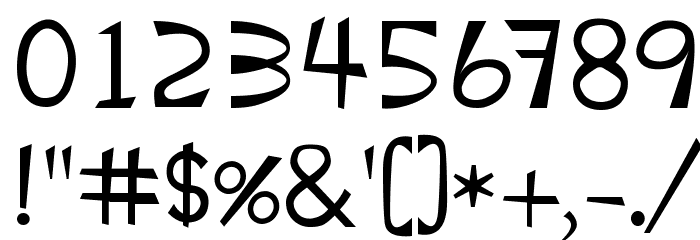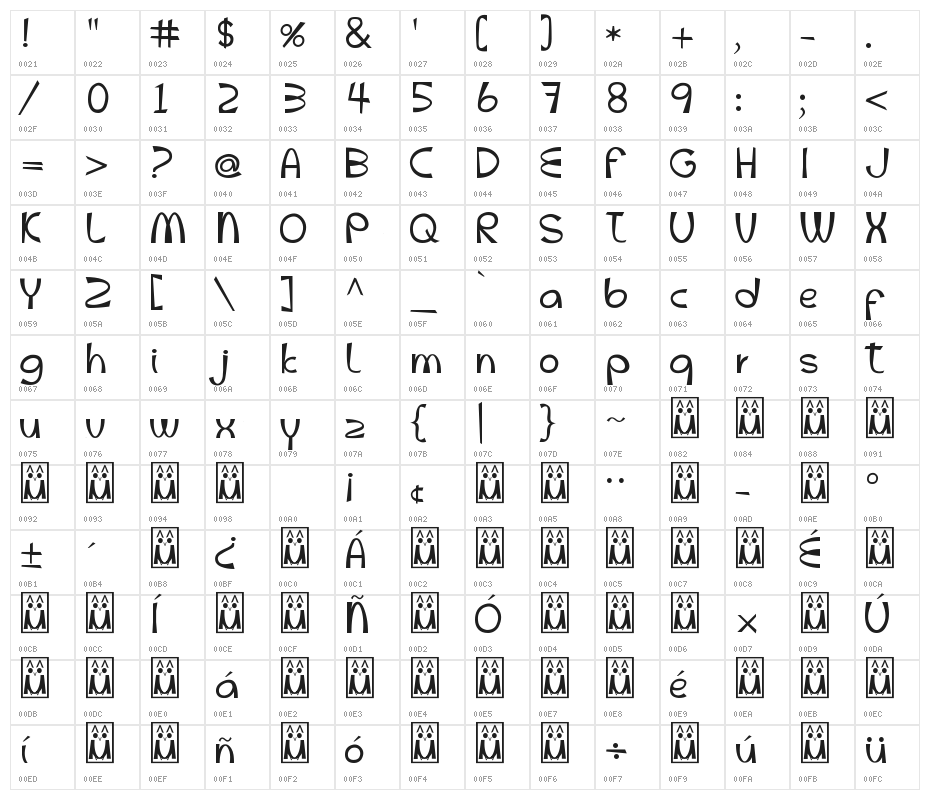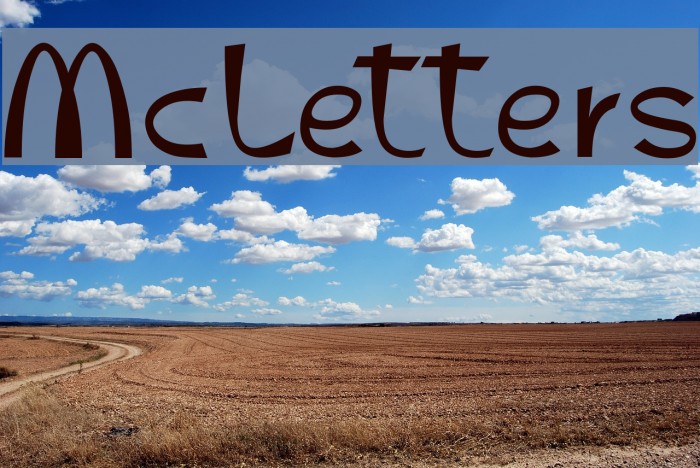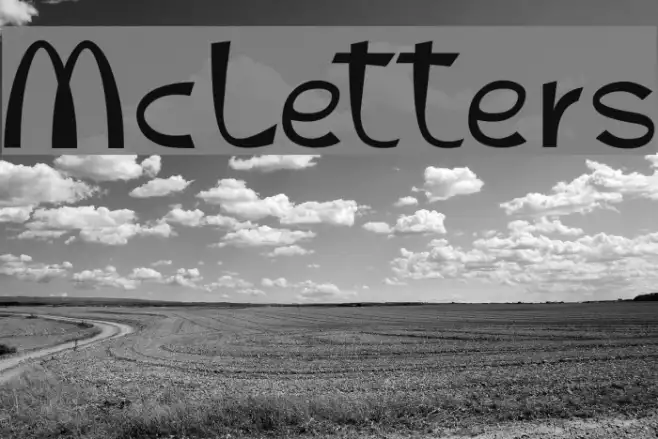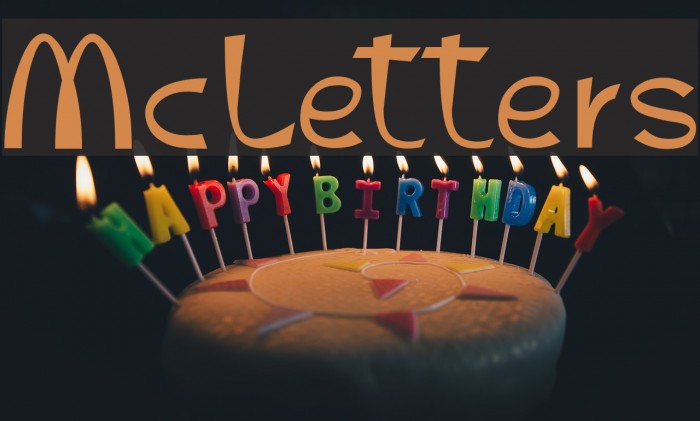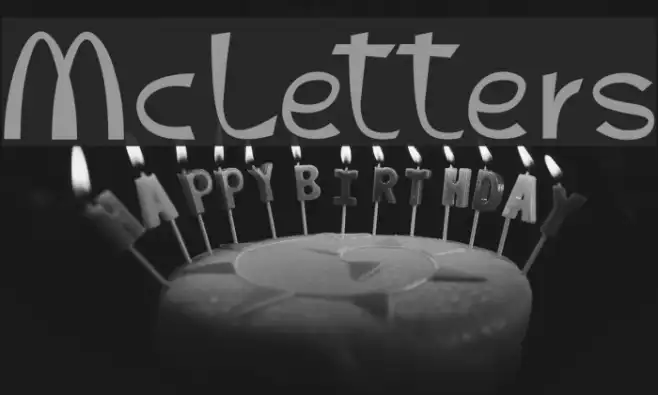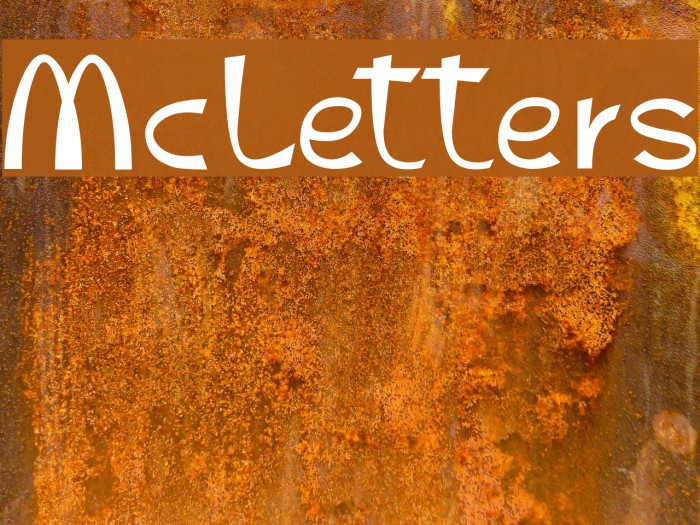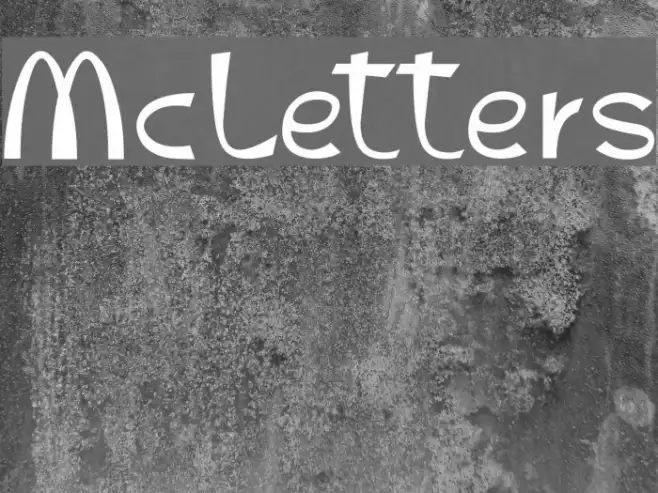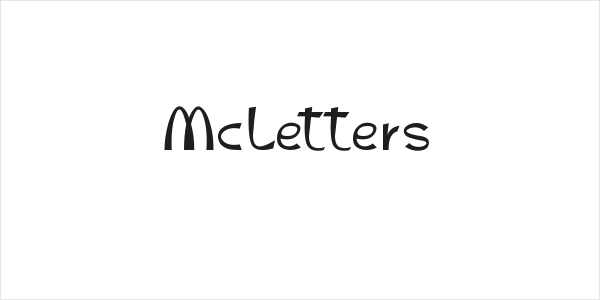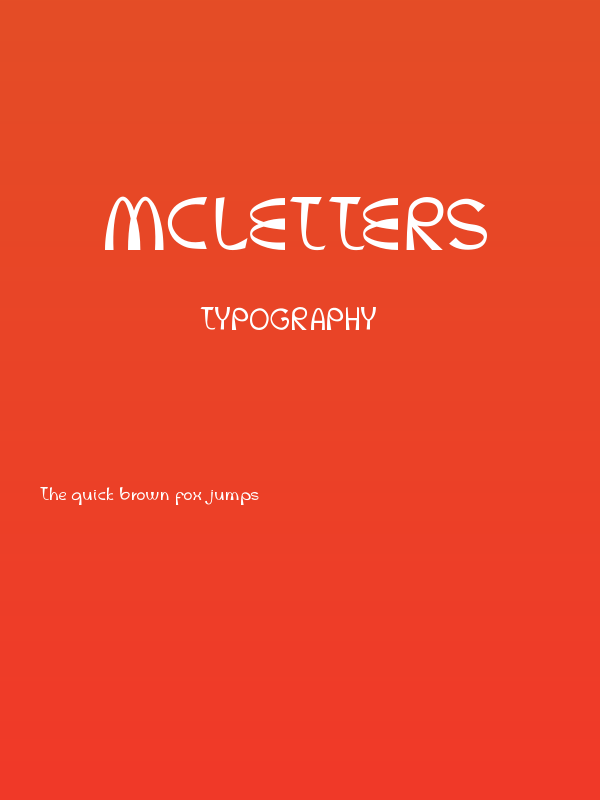
McLetters Font
McLetters Description
This playful and whimsical font features a unique blend of curves and angles, creating a lively and dynamic appearance. The uppercase letters are bold and slightly irregular, giving them a hand-drawn feel. The lowercase letters maintain a consistent style, with rounded edges and a slight tilt that adds to the font's quirky charm. Numbers are bold and clear, with distinctive shapes that ensure readability. Special characters are creatively designed, matching the overall playful theme. This font's distinctive style makes it perfect for projects that require a fun and engaging look.